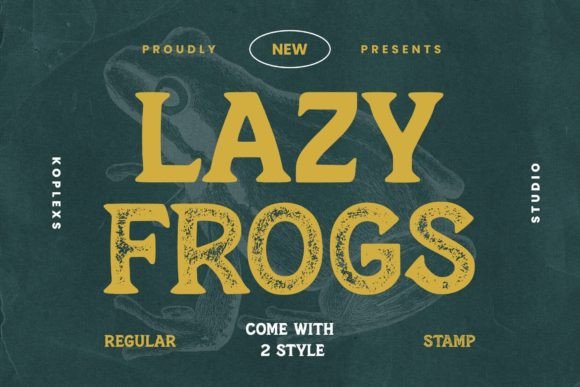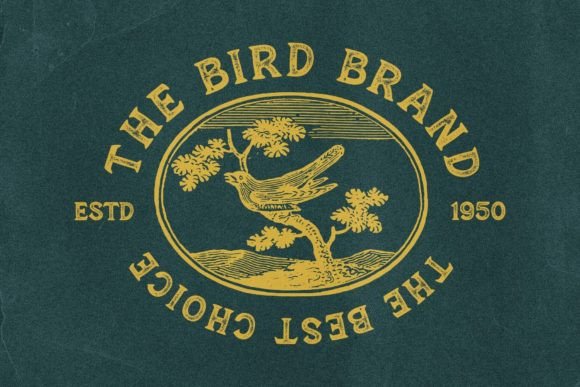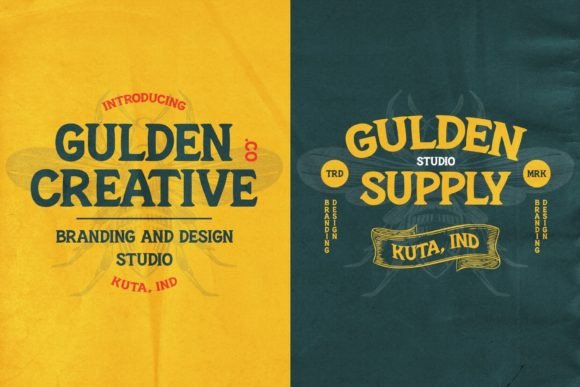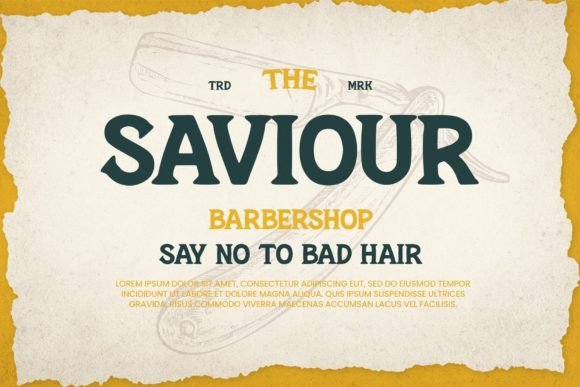
Lazy Frogs Font: Nostalgic Retro Fonts for DIY & Craft Projects
About the Lazy Frogs Font
Explore the possibilities with Lazy Frogs Font, a font that offers both beauty and functionality. Lazy Frogs Font is the perfect choice to infuse your designs with a sense of nostalgia and uniqueness. Featuring two captivating styles, regular and stamp, this font exudes the timeless character and charm of the vintage era.
Embodying a laid-back nonchalance inspired by the word ‘Lazy’ in its name, Lazy Frogs delivers a warm and friendly retro ambiance. The regular style offers a clean and crisp look, ideal for headers, titles, and graphic designs that demand a classic allure.
On the other hand, the stamp style adds an eccentric touch and handcrafted accents that make your designs appear as carefully stamped pieces of art. Perfect for instilling a vintage and handmade feel to labels, postcards, or merchandise.
The versatility of Lazy Frogs across various contexts makes it a go-to choice. Whether crafting a logo for a retro business or embellishing wedding invitations with a classic touch, this font effortlessly transforms your ideas into memorable works.
With Lazy Frogs Vintage Font, we’re not just talking about letters; we’re telling a story. Infuse your designs with an unforgettable touch of nostalgia with this font, and let its unique character transport you back to a charming past.
Lazy Frogs Font Usage Examples
Lazy Frogs Font Example